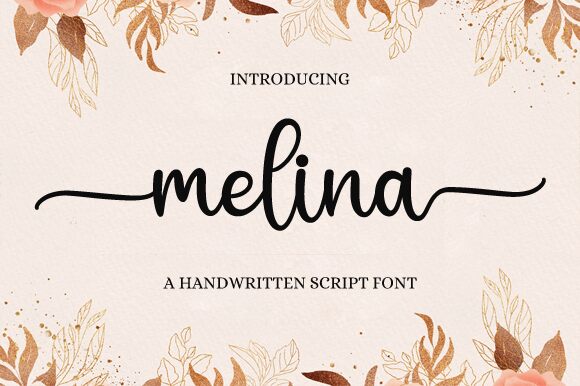
Melina font by Nirmala Creative is a handwritten typeface that beautifully captures a modern script style. Expressive and fluid, it showcases graceful, inviting lines with a personal touch. Melina’s artistic flair makes it an eye-catching choice for projects in need of memorable typography.
Free for personal access, the font suits business cards, greeting cards, digital signatures, websites and blogs headlines. It’ll work like magic on advertising posters or banners and labels from product packaging to scrapbooking elements. Design covers for books or magazines as well as swag printed items like tote bags or mugs.